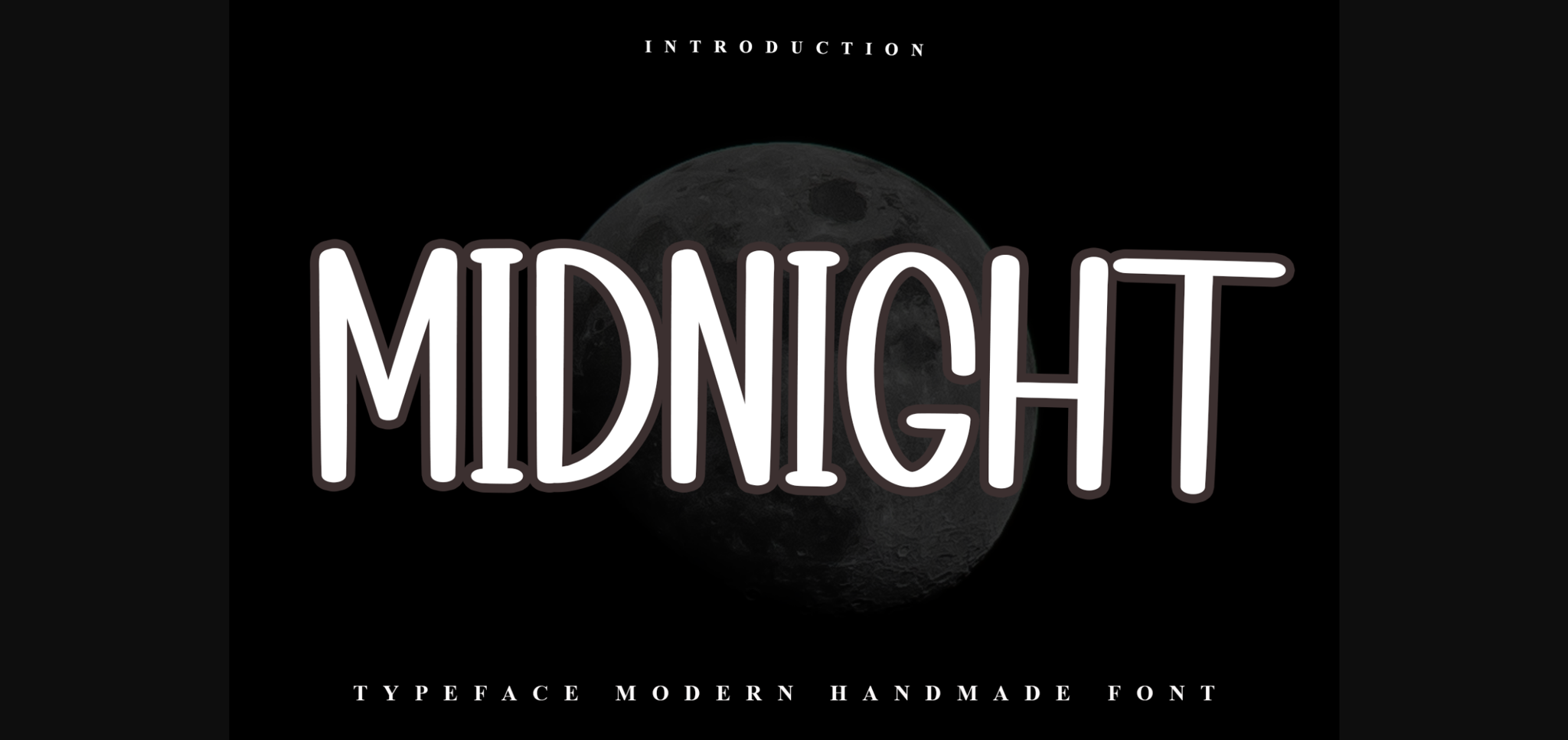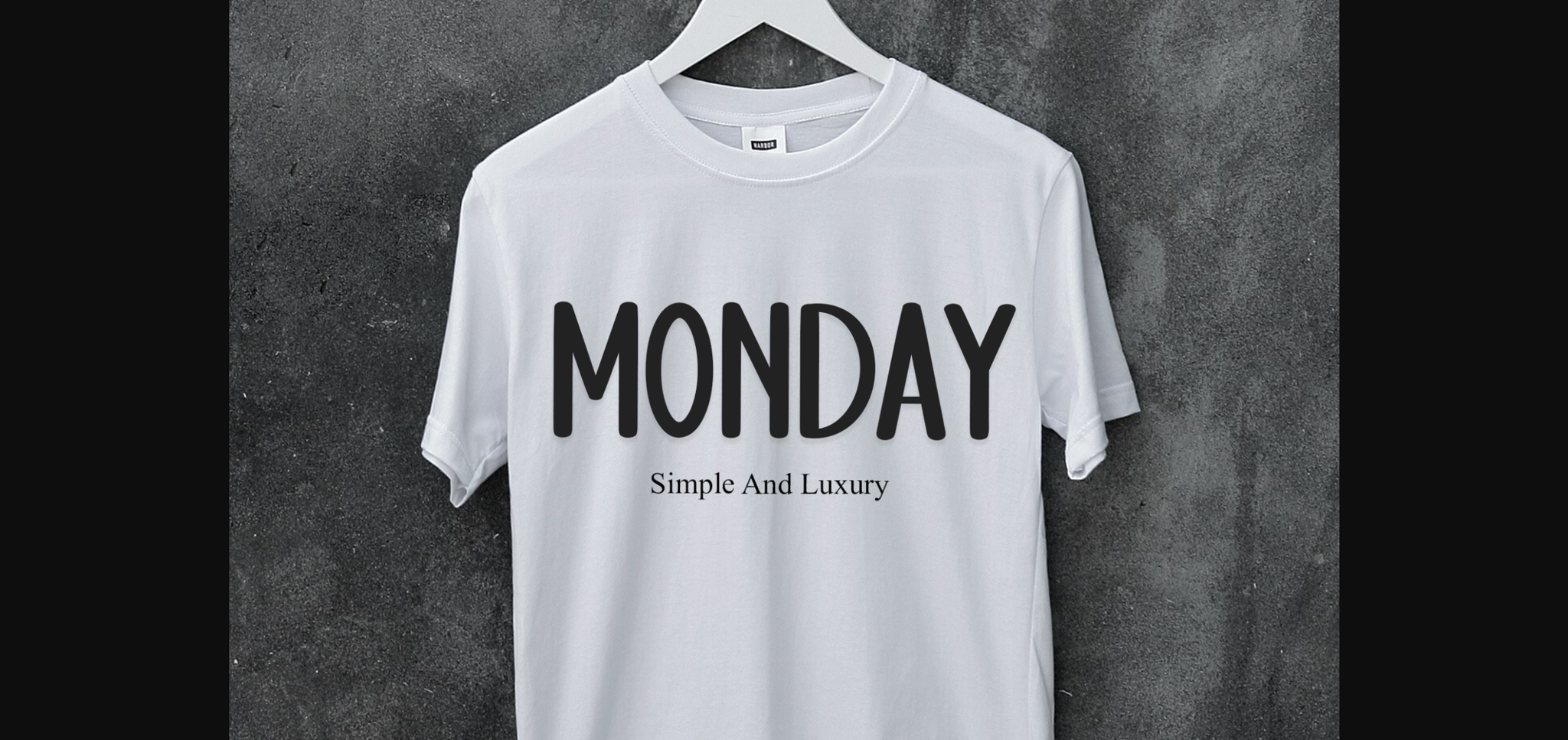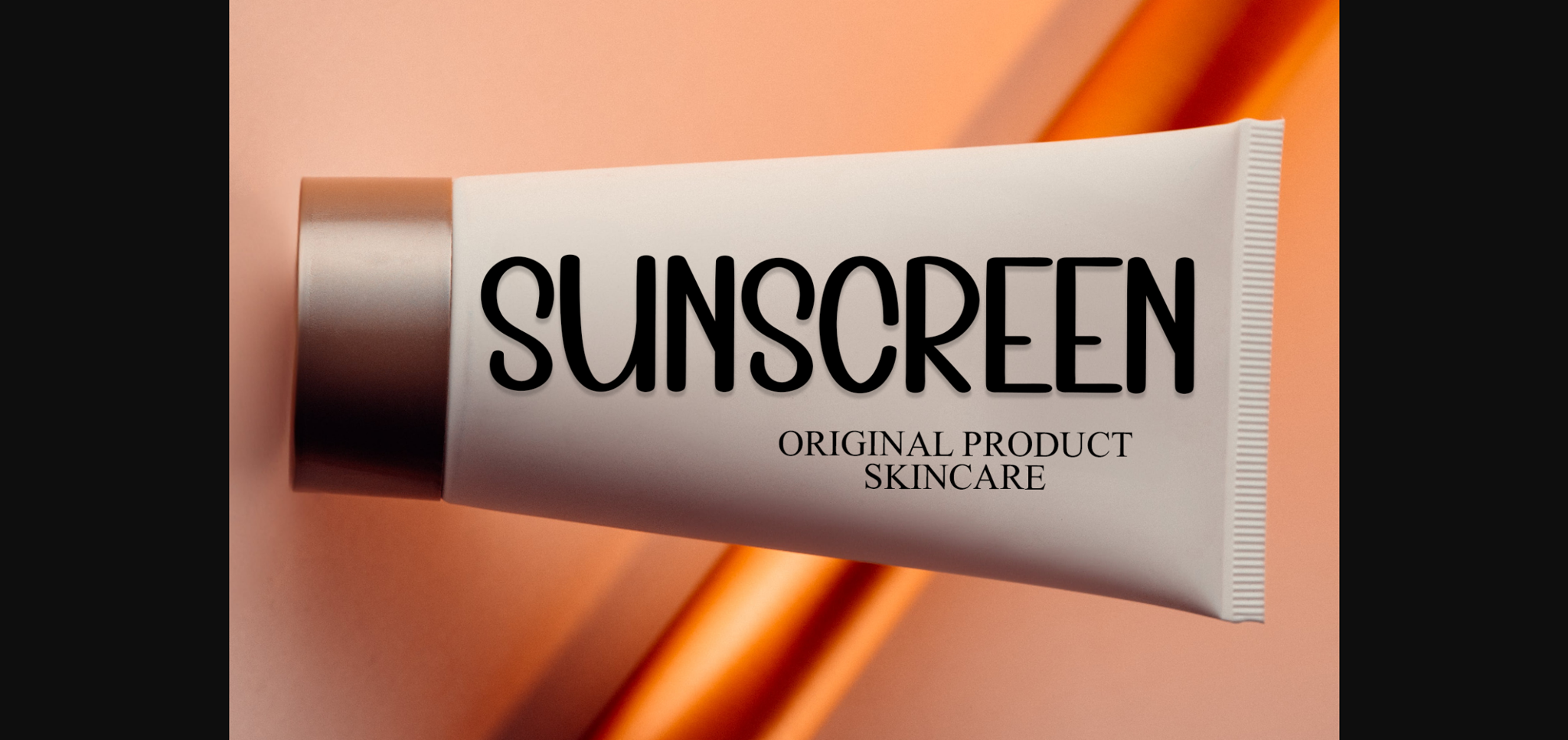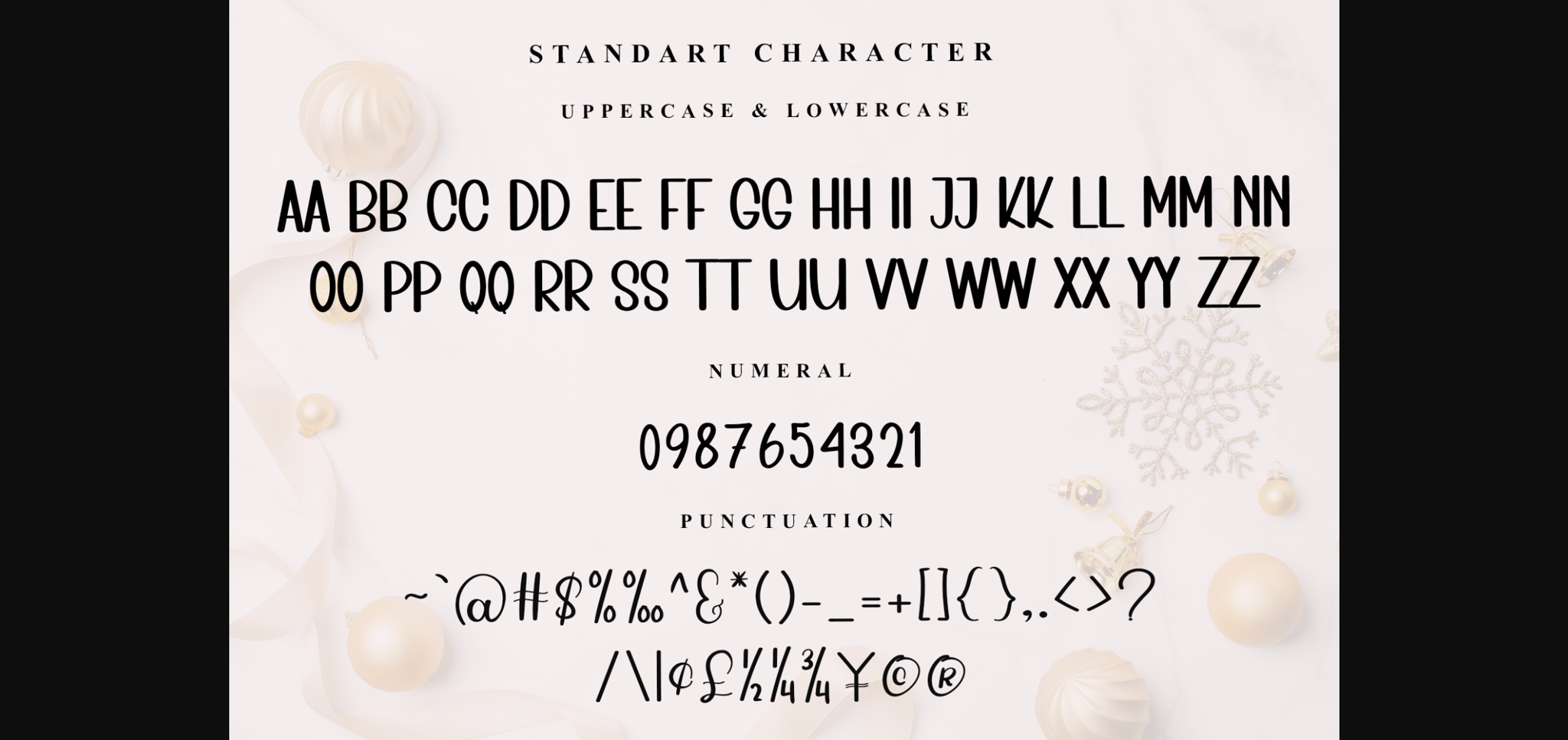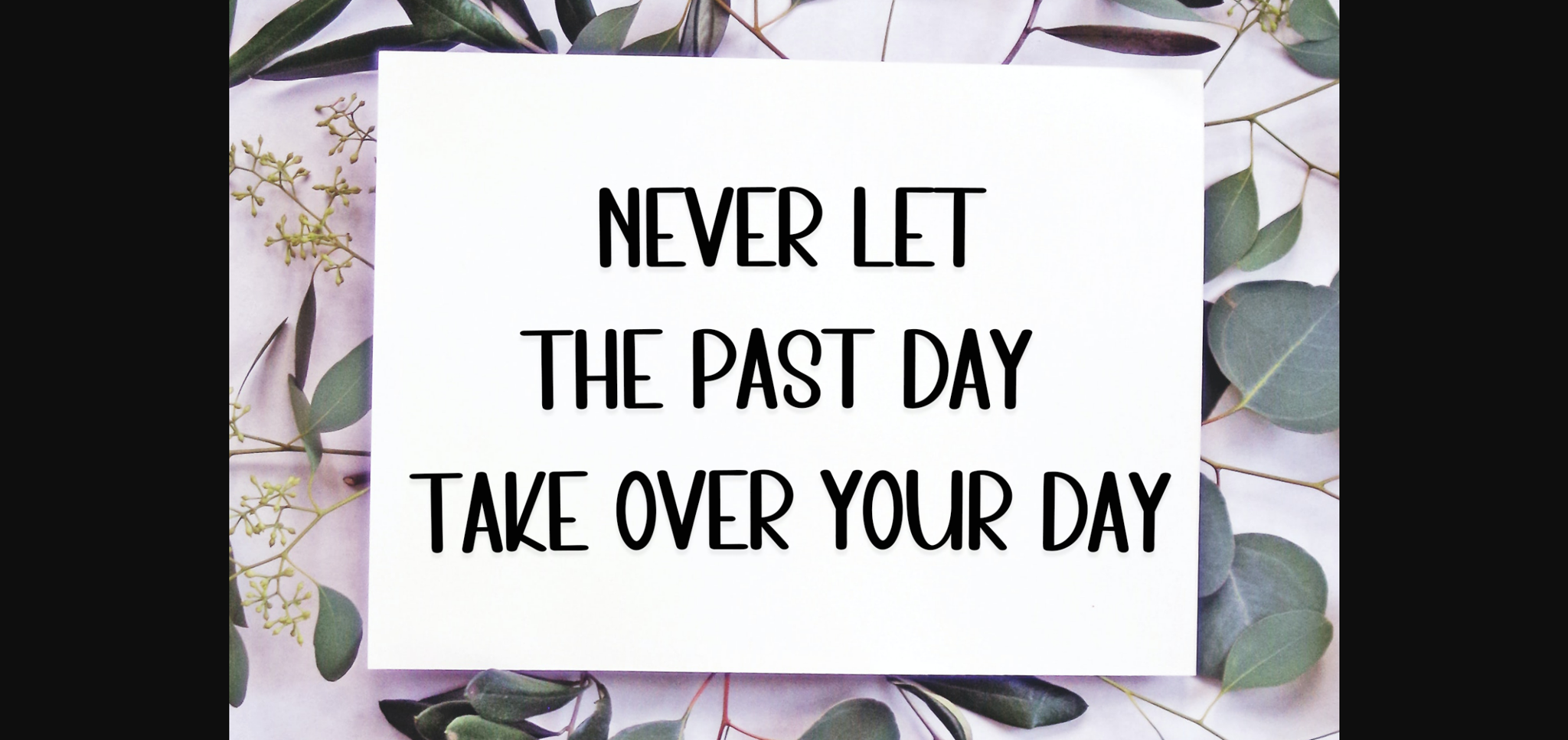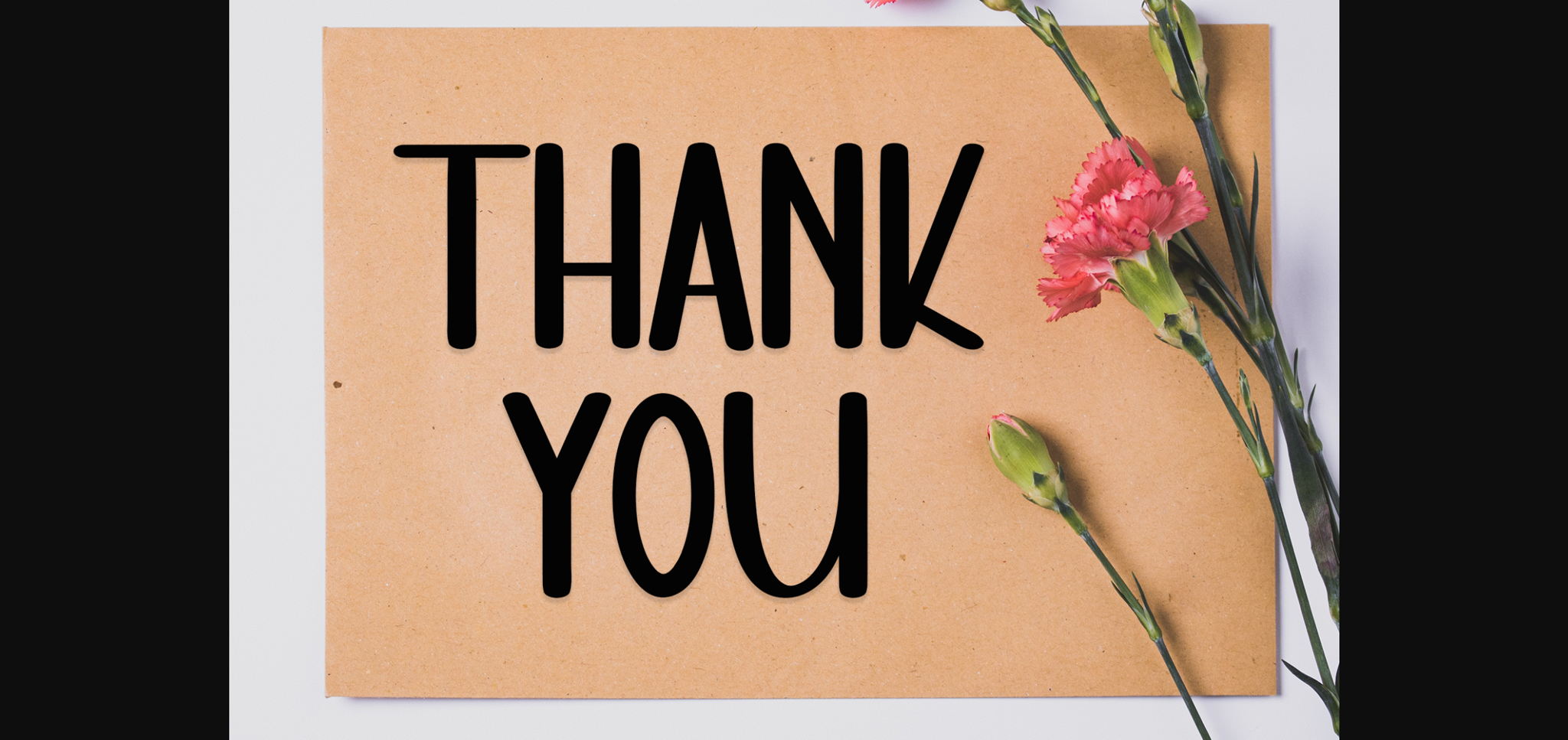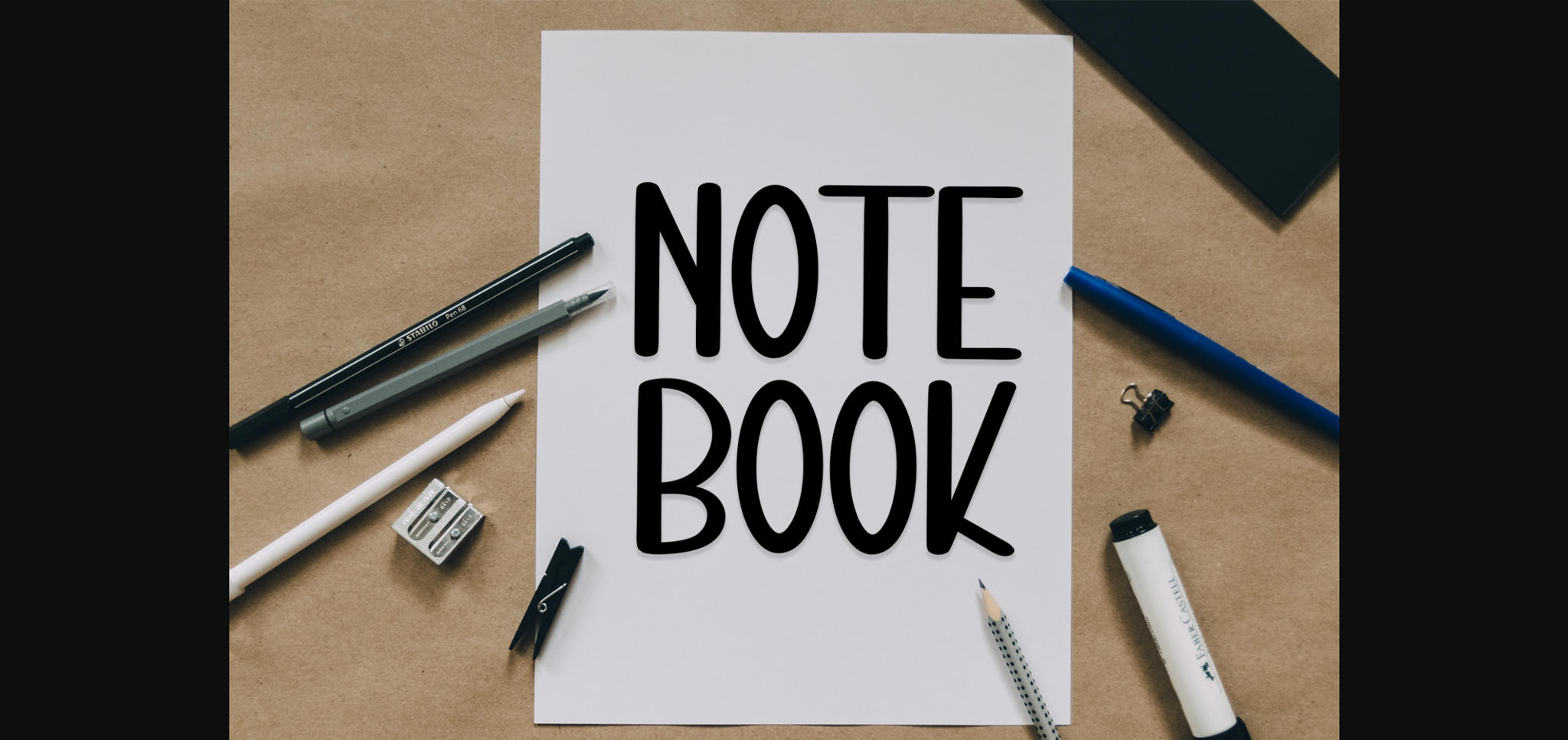
Midnight Font
About Midnight Font
Midnight is a graceful sans-serif font characterized by fluid strokes and elegant curves. With its flowing rhythm and natural feel, this font exudes charm and sophistication. Ideal for wedding invitations, greeting cards, and branding, this font adds a touch of warmth and personality to any project with its stylish appeal.